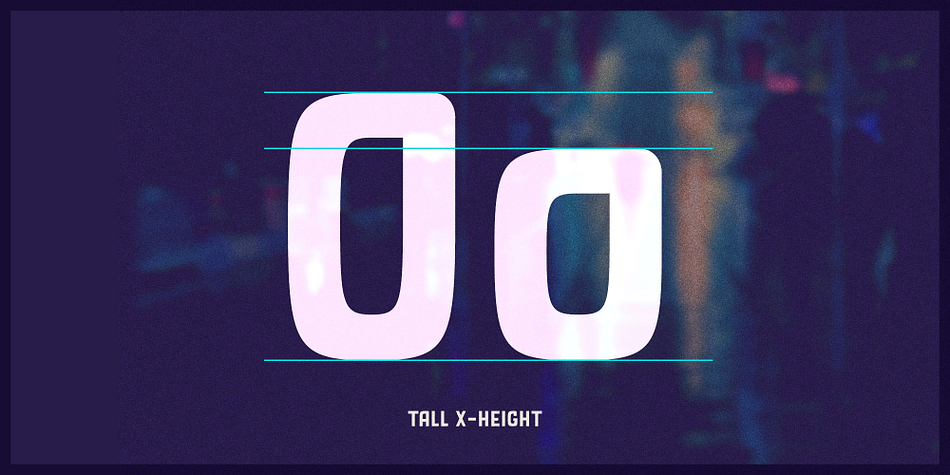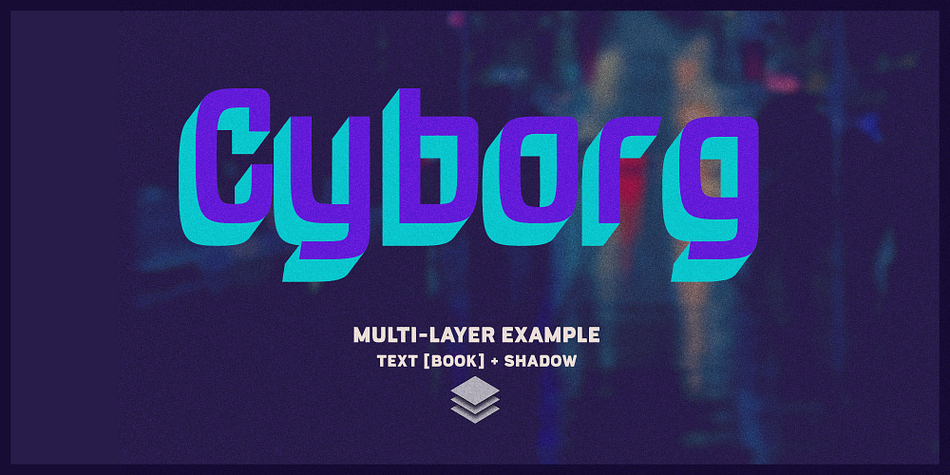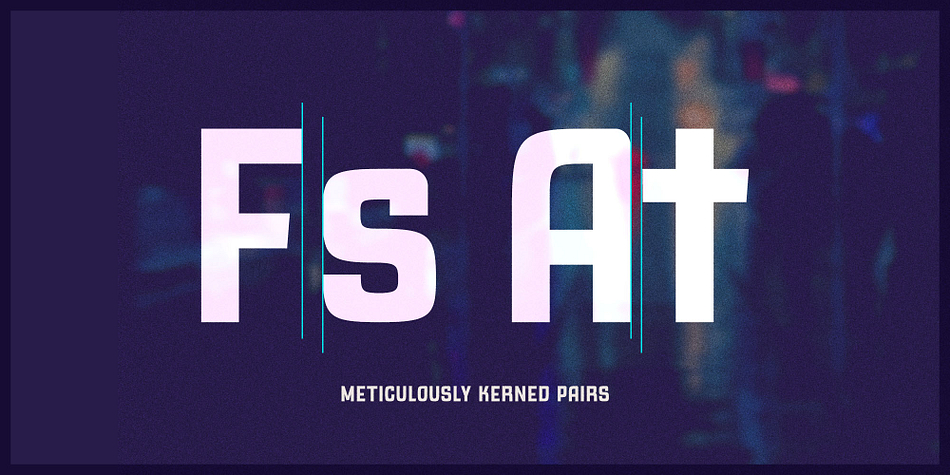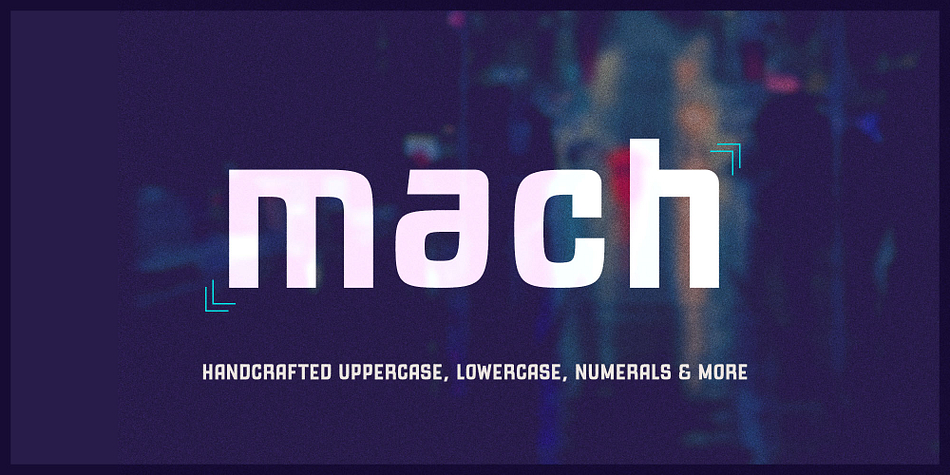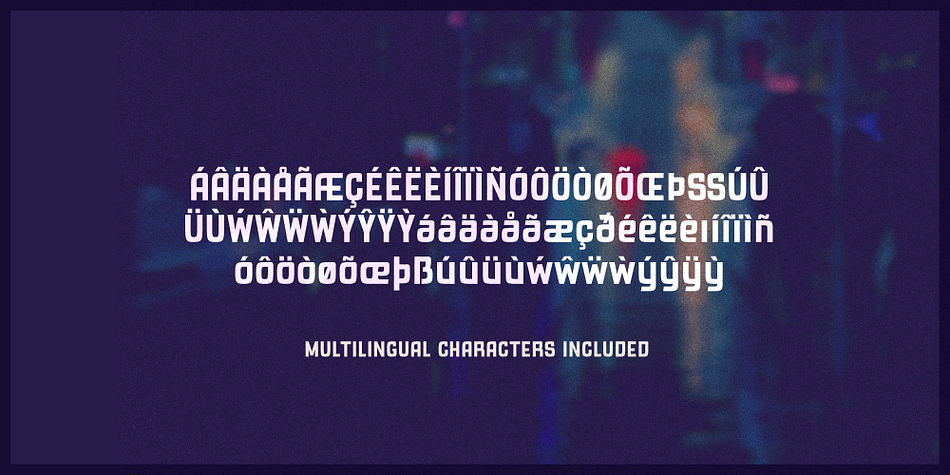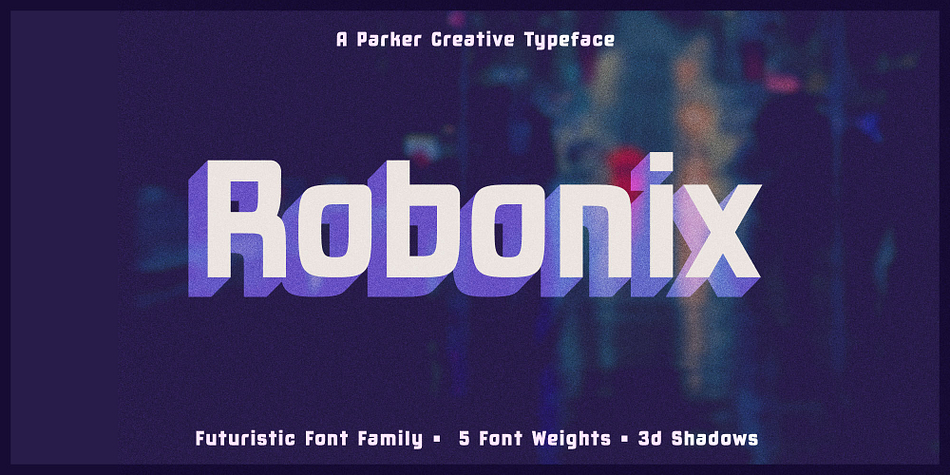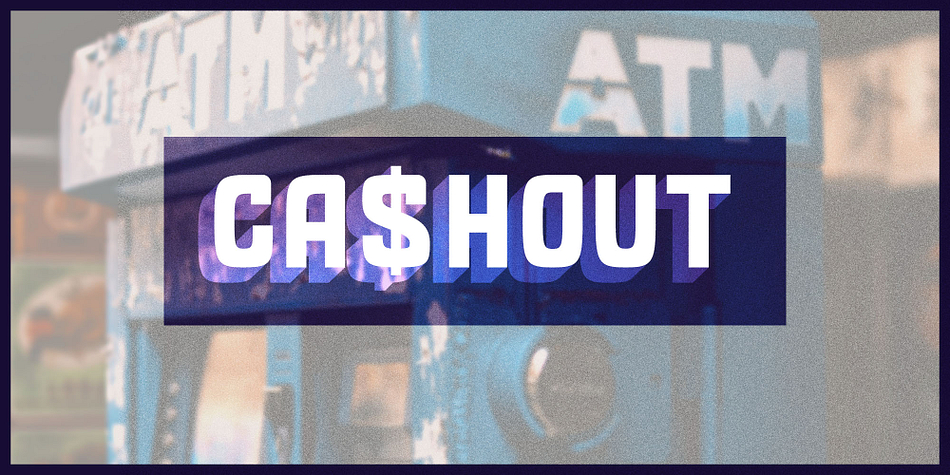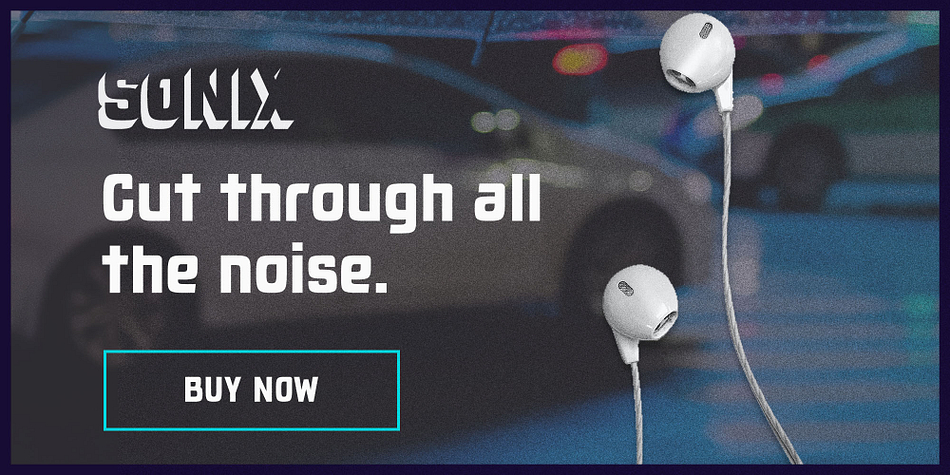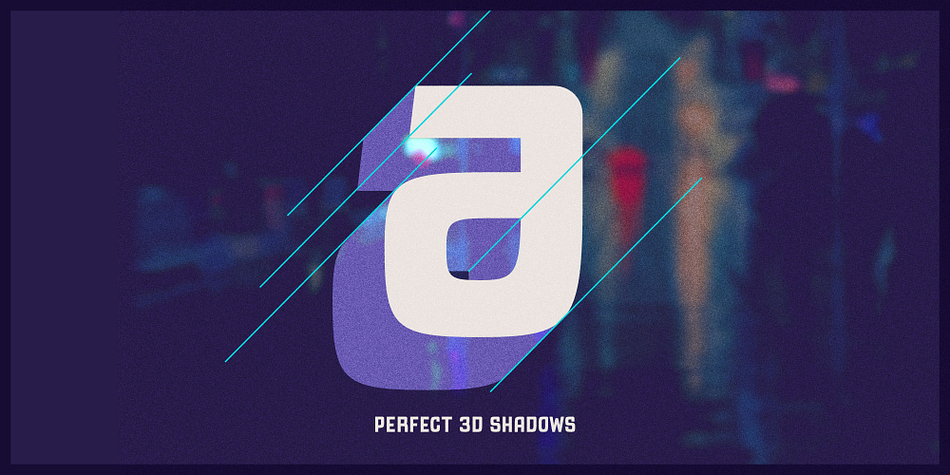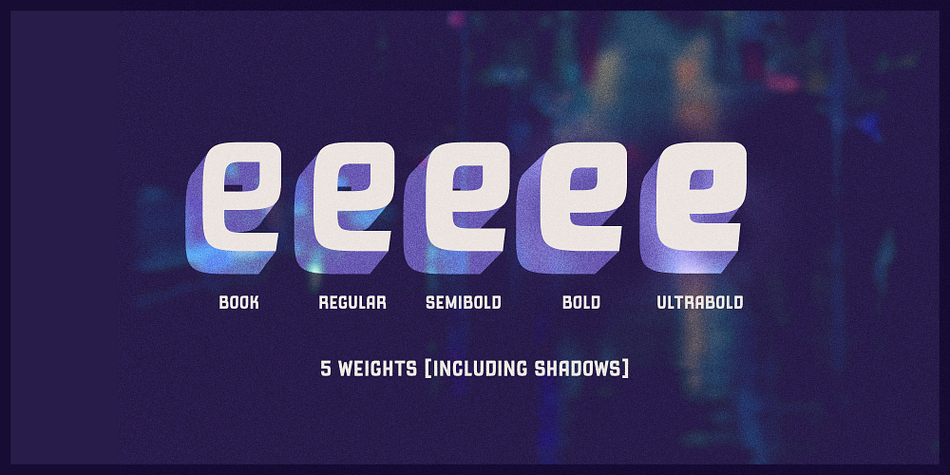
Robonix is a display sans font family. This typeface has ten styles and was published by Parker Creative.
Robonix is a futuristic sans-serif font family that includes custom shadow variations for a layered 3d font effect. Inspired by the cyberpunk genre, Robonix is a versatile digital typeface that brings a modern geometric look and feel to your designs. Build beautiful logos, flyers, banners and more with perfect drop shadows quickly and efficiently.
Robonix Includes:
- 5 font weights
- 5 matching shadow fonts
- Extended Western European latin characters